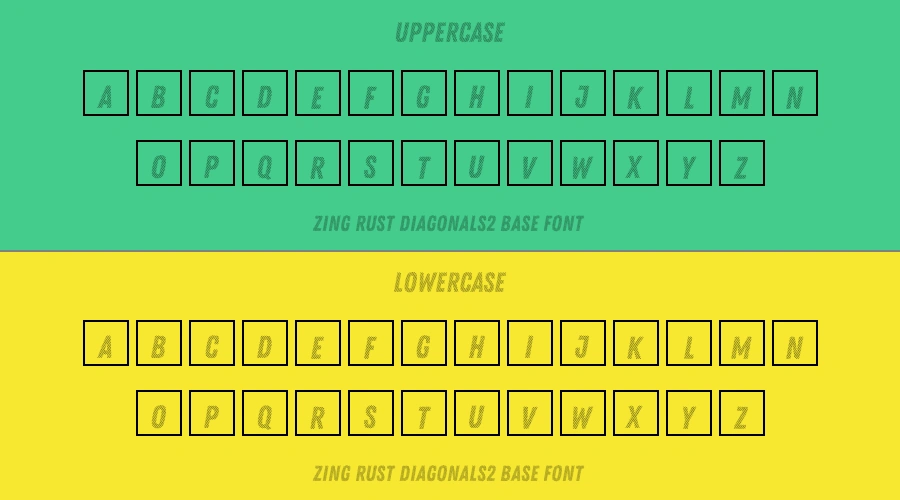
About Zing Rust Diagonals2 Base Font
Designed with precision, Zing Rust Diagonals2 Base Font merges architectural precision with memorability in every character. This versatility makes it particularly effective for billboard design, where durability and functional utility directly impact communication quality. Each letterform demonstrates meticulous craftsmanship.
Technical excellence shines through elements like natural flow and case-sensitive forms, enhancing typographic versatility. In promotional materials settings, Zing Rust Diagonals2 Base Font proves its worth through superior file efficiency. The thoughtful execution of spur details and user perception ensures professional results.